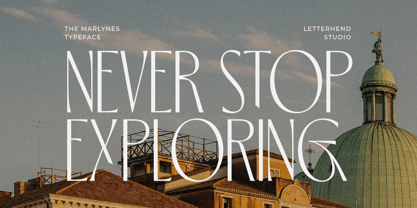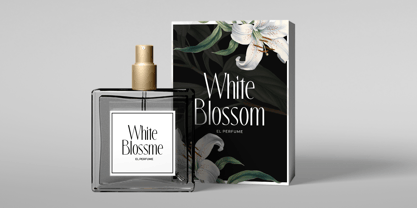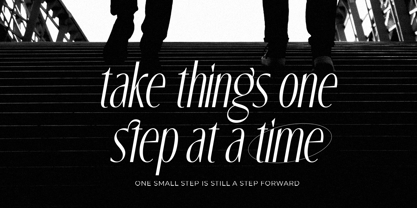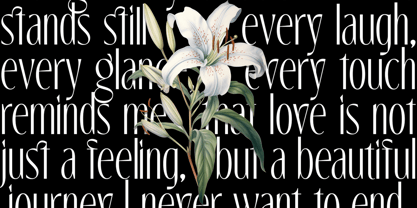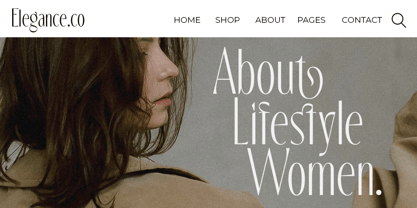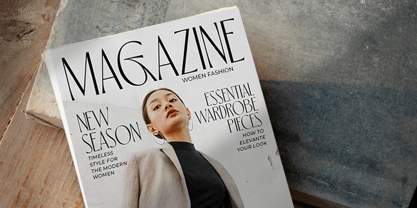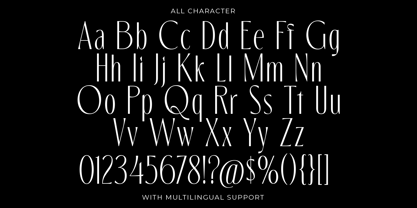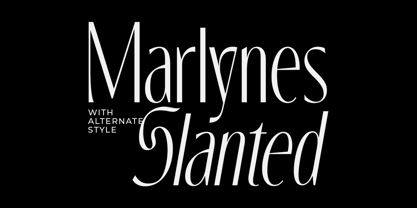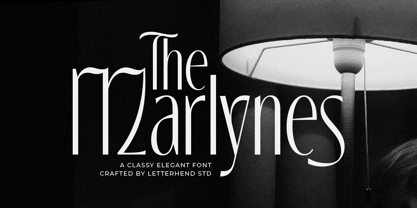
The Marlynes
by Letterhend
The The Marlynes Font Family was designed by Hendry Juanda and published by Letterhend. The Marlynes contains 2 styles and family package options. More about this family
The Marlynes is a refined display font that embodies timeless elegance and sophistication. With its tall, graceful letterforms and delicate curves, this typeface captures the essence of high fashion and luxury design. Its poised and stylish presence ensures your design stands out with class, charm, and confidence. Features : Uppercase & lowercase Numbers and punctuation Alternates & Ligatures Multilingual Support PUA encoded